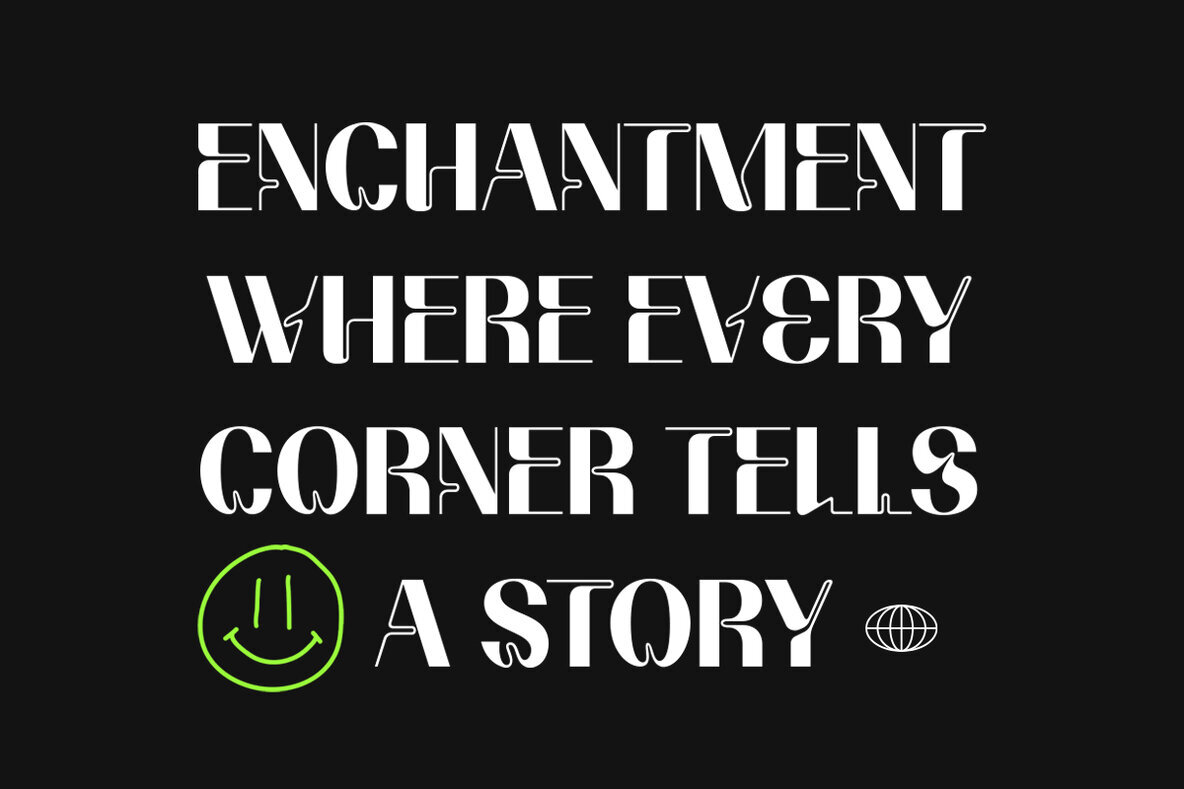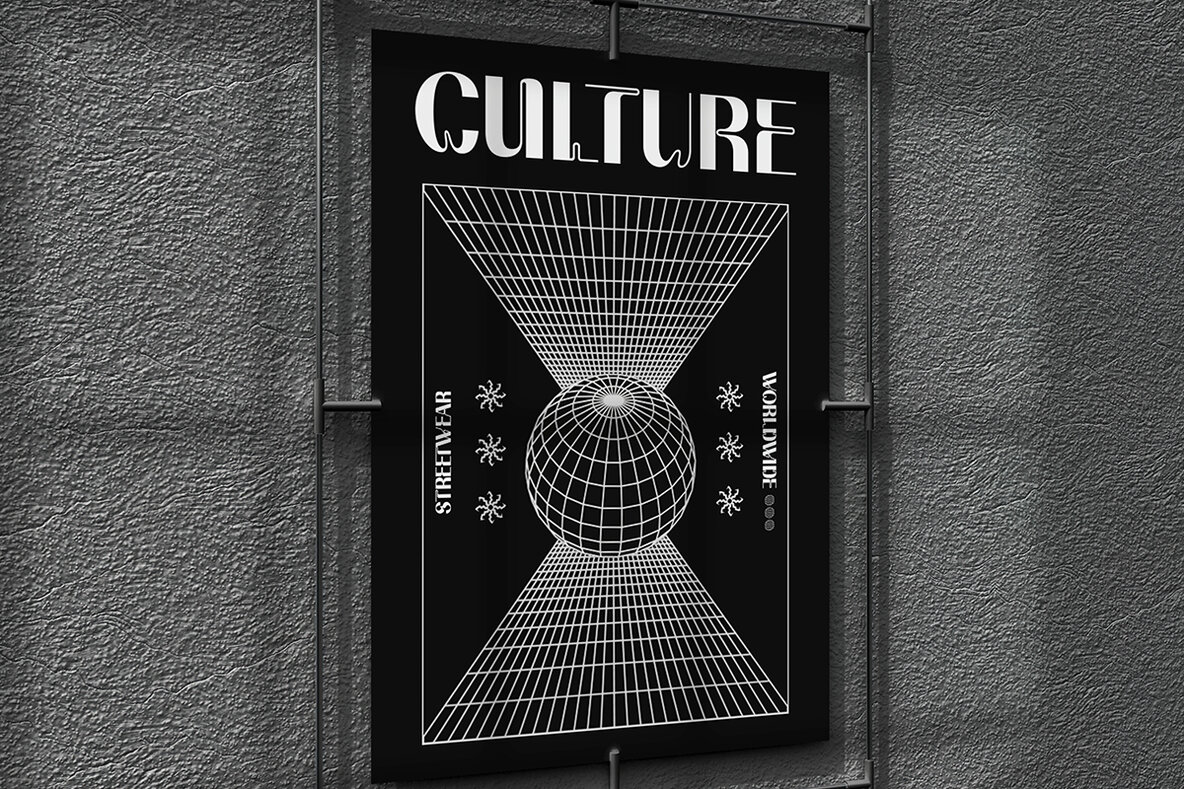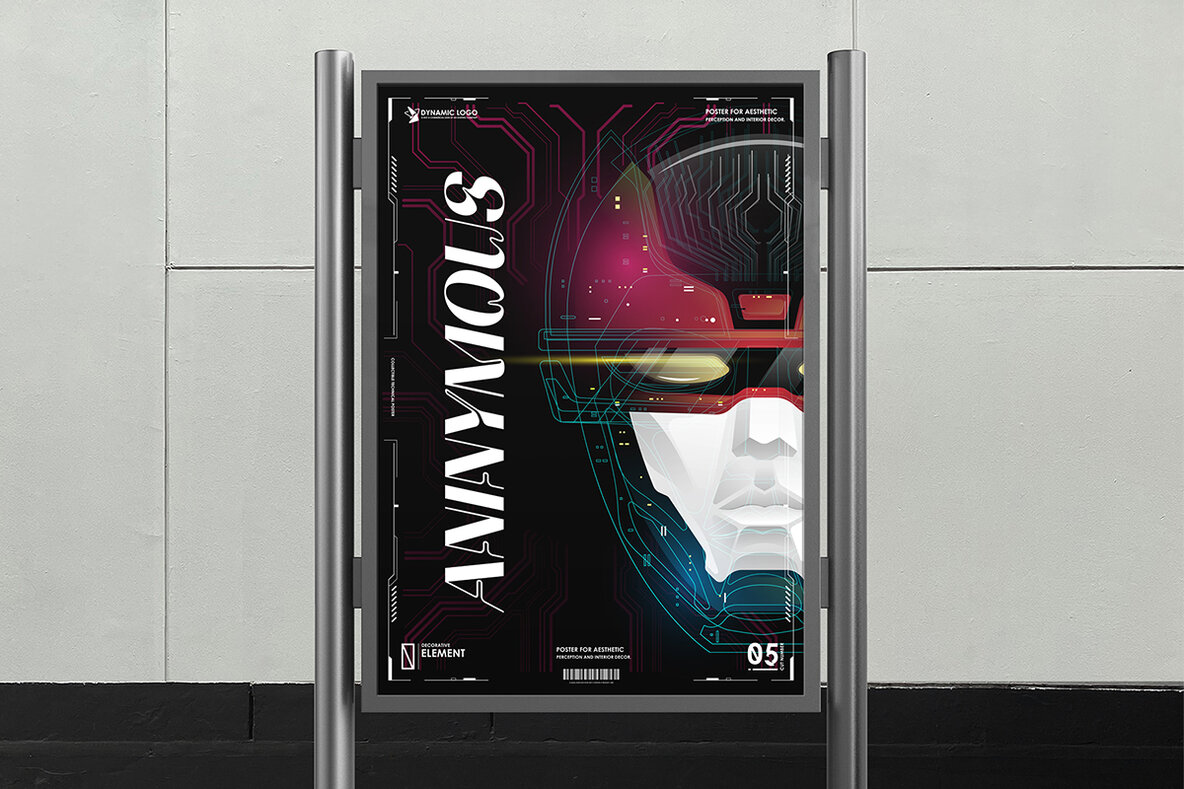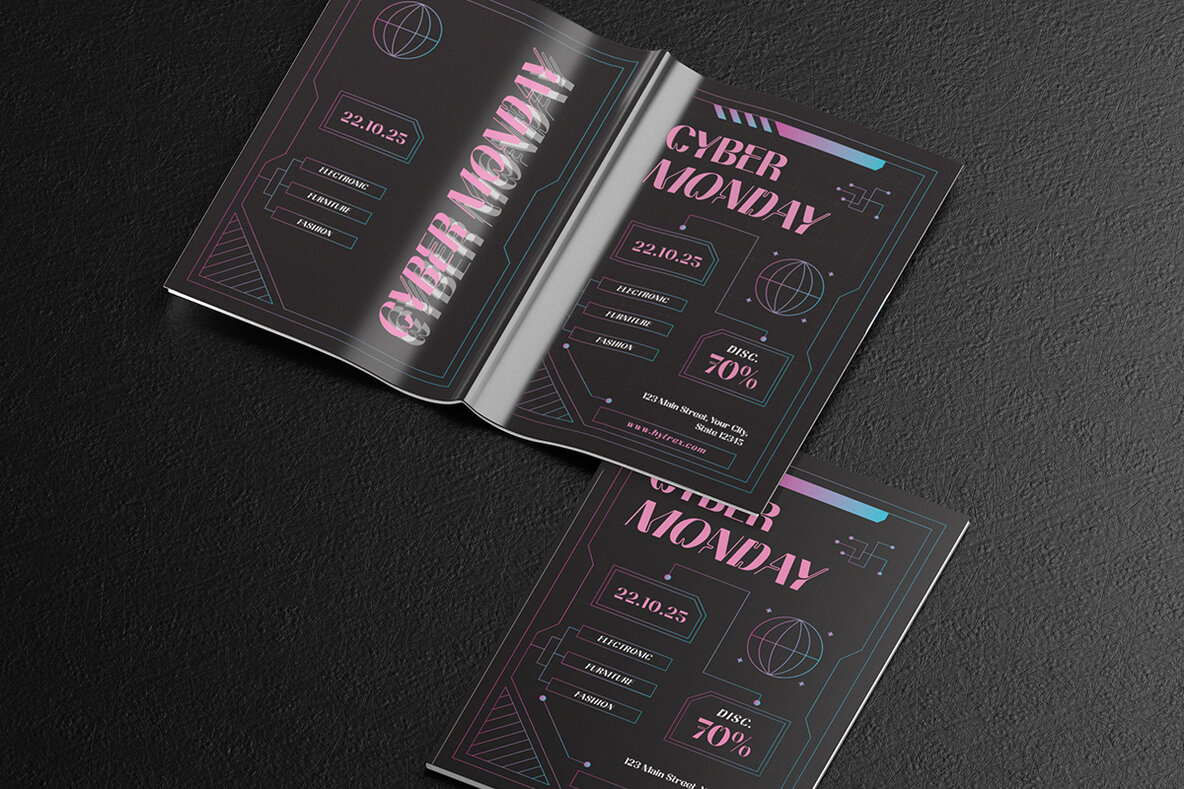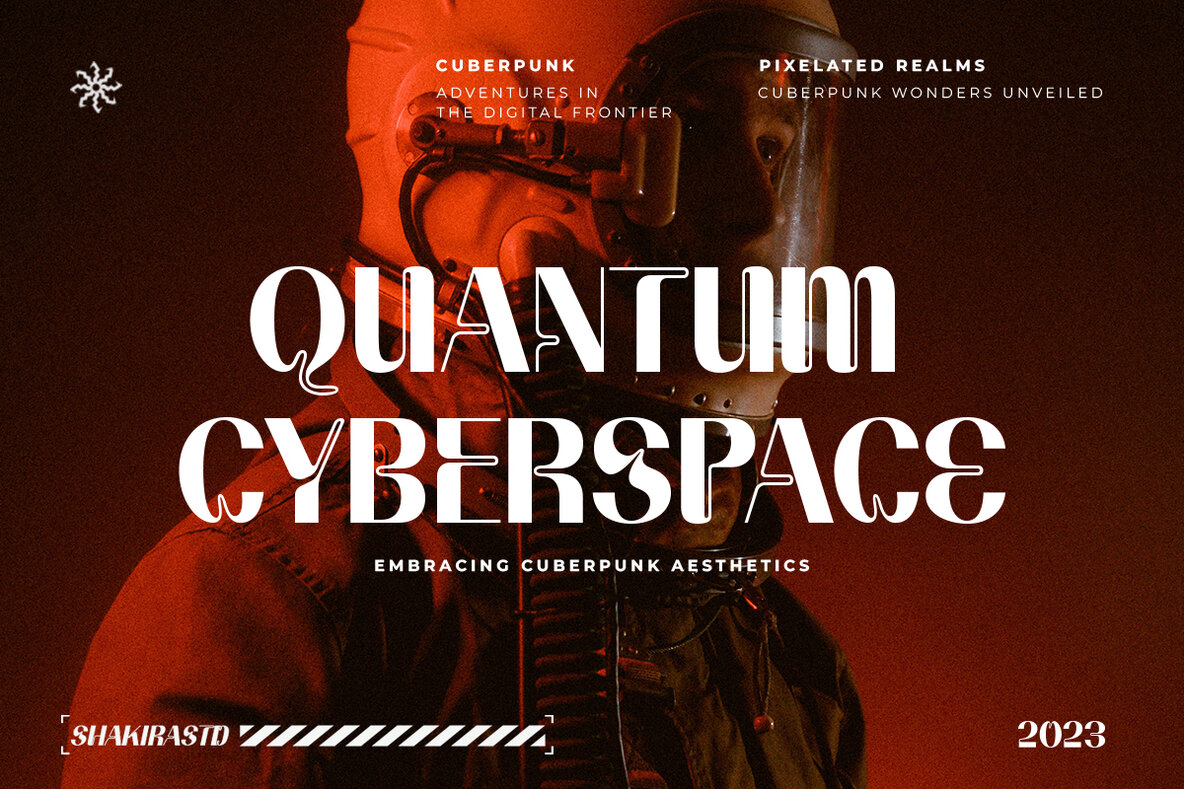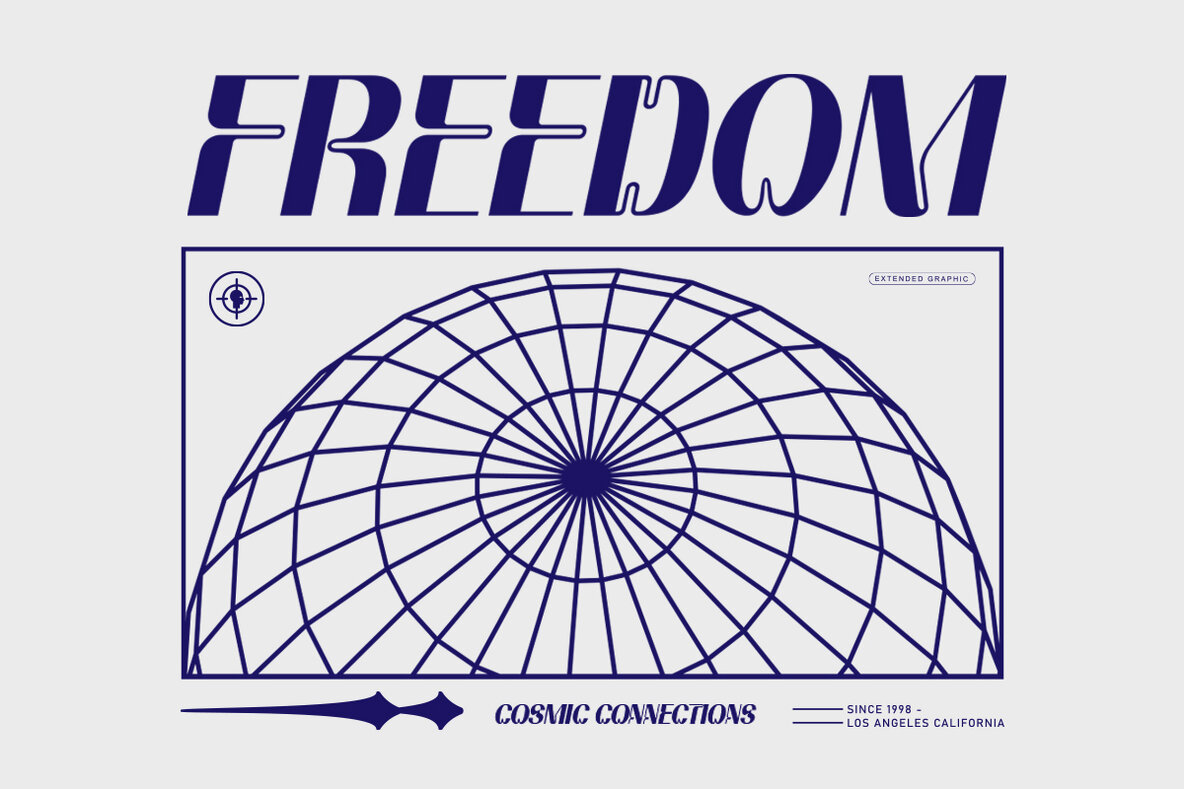
Vetimus Font
Vetimus Regular
Vetimus Italic
Vetimus stands as a beacon of contemporary design, combining boldness with finesse. Crafted for designers seeking a sleek and captivating display font, Vetimus is perfect for logos, headlines, or any project that demands attention. Vetimus supports a variety of languages, including Afrikaans, Albanian, Catalan, Croatian, Czech, Danish, Dutch, English, Estonian, Finnish, French, German, Hungarian, Icelandic, Italian, Lithuanian, Maltese, Norwegian, Polish, Portuguese, Slovenian, Spanish, Swedish, Turkish, and Zulu.Vetimus: A Modern Display Font of Elegance